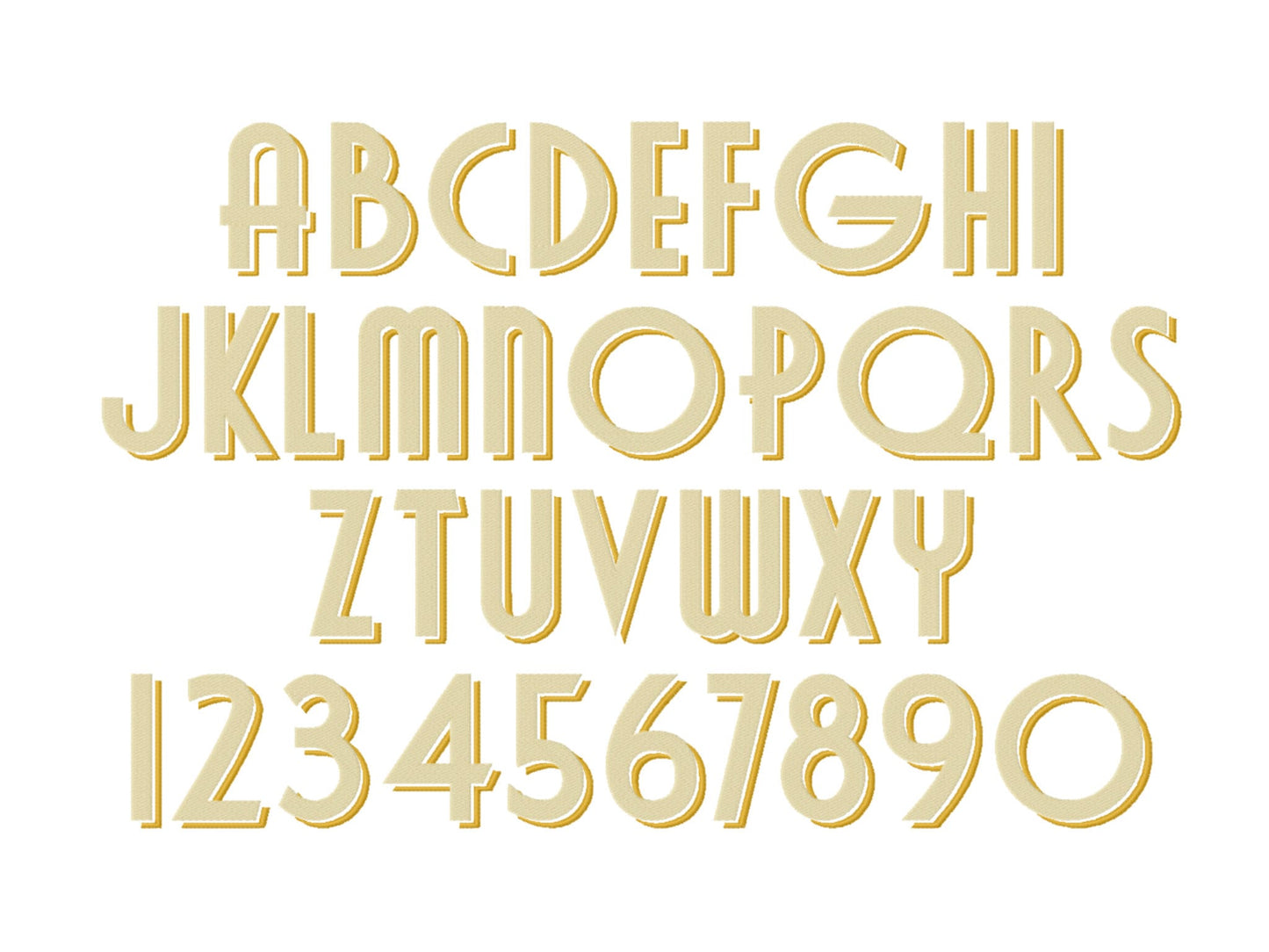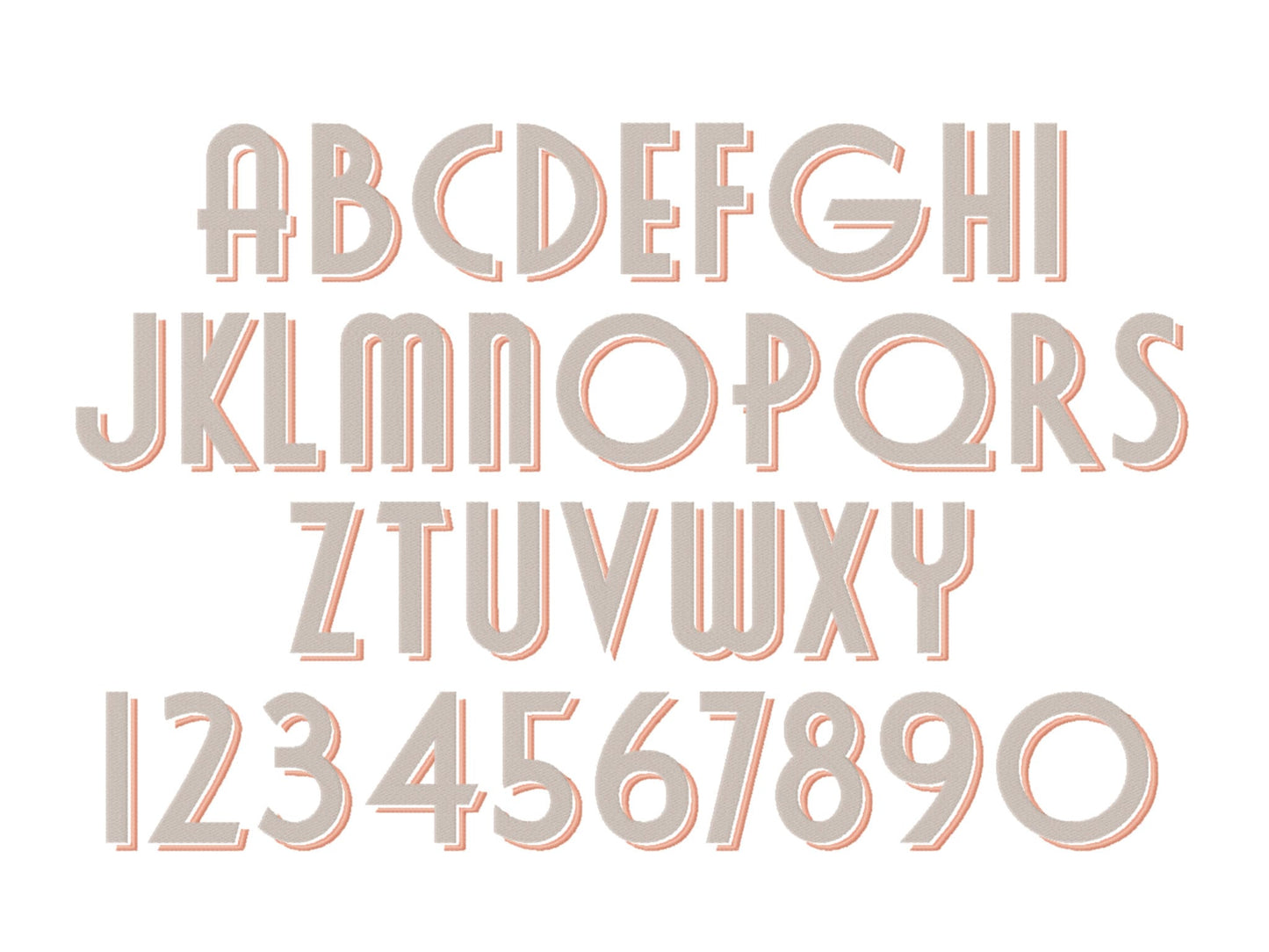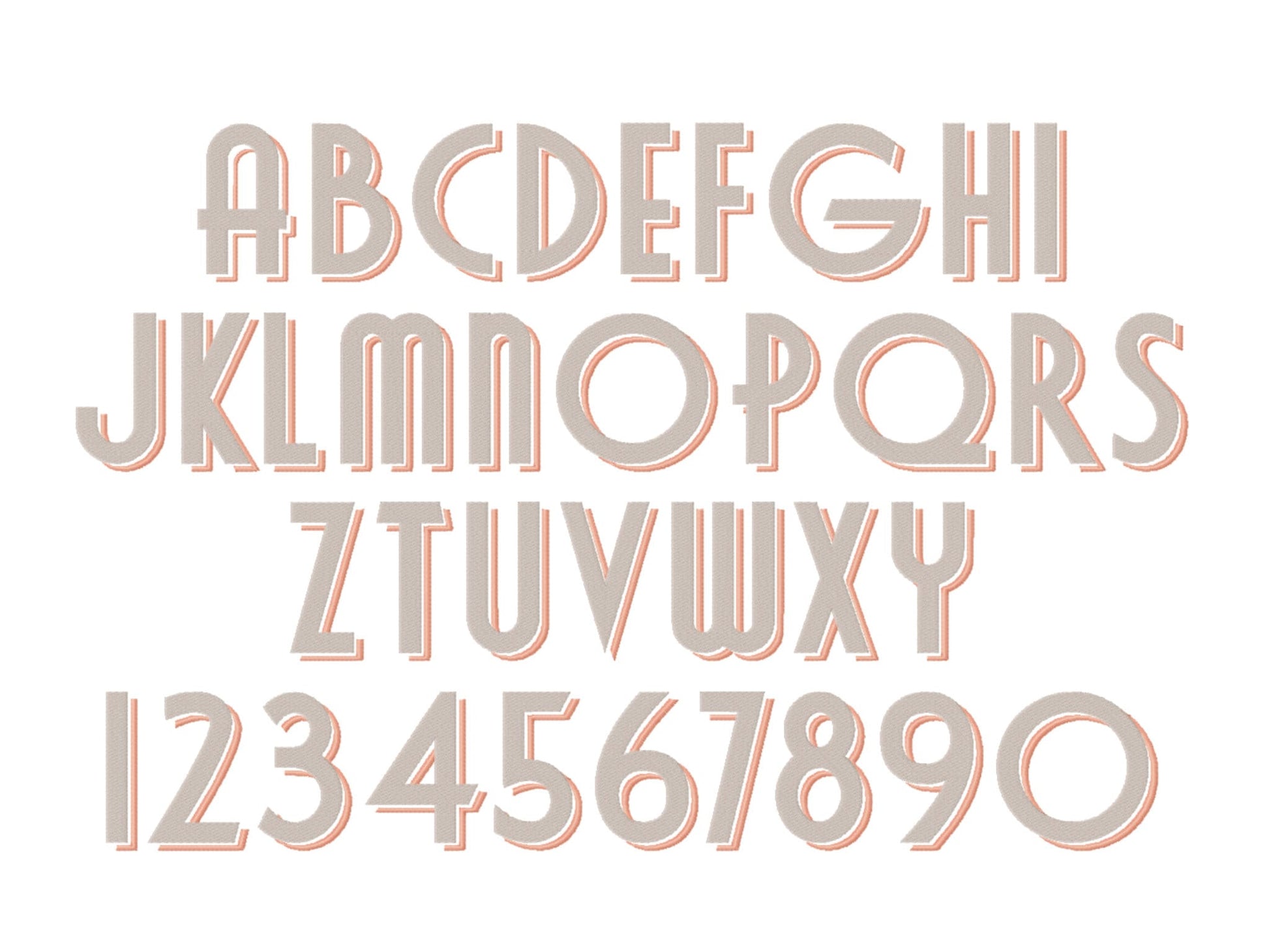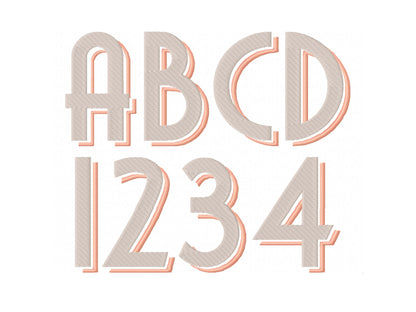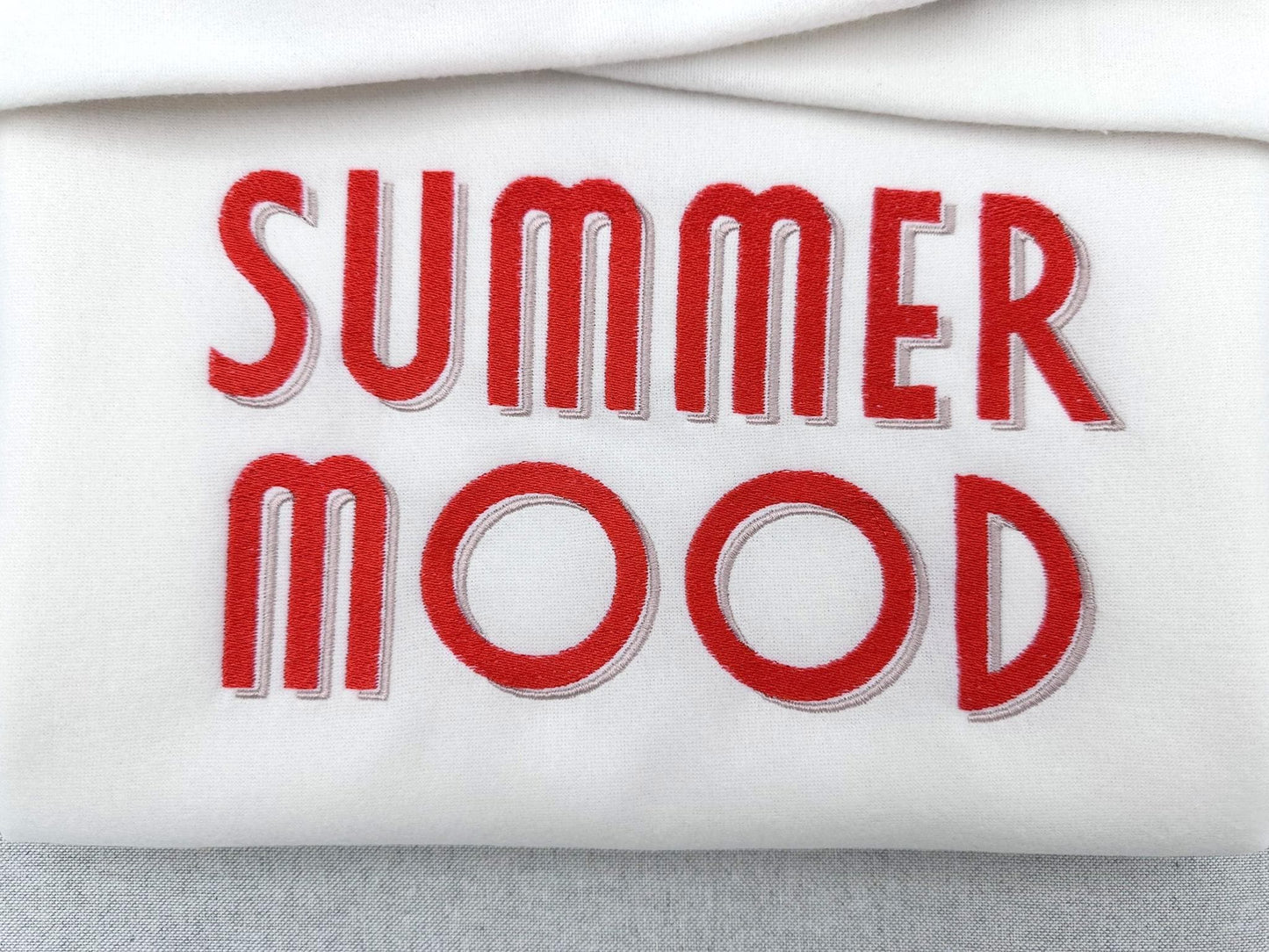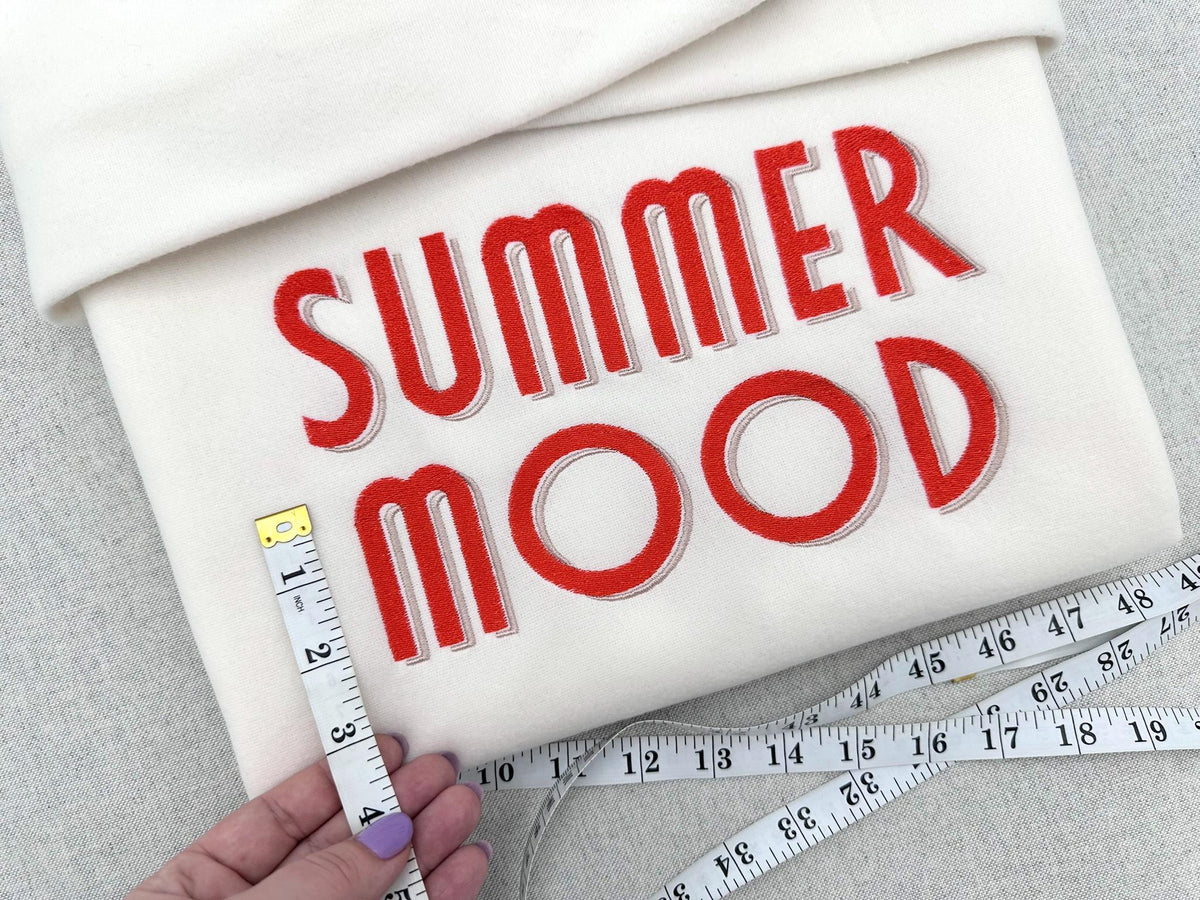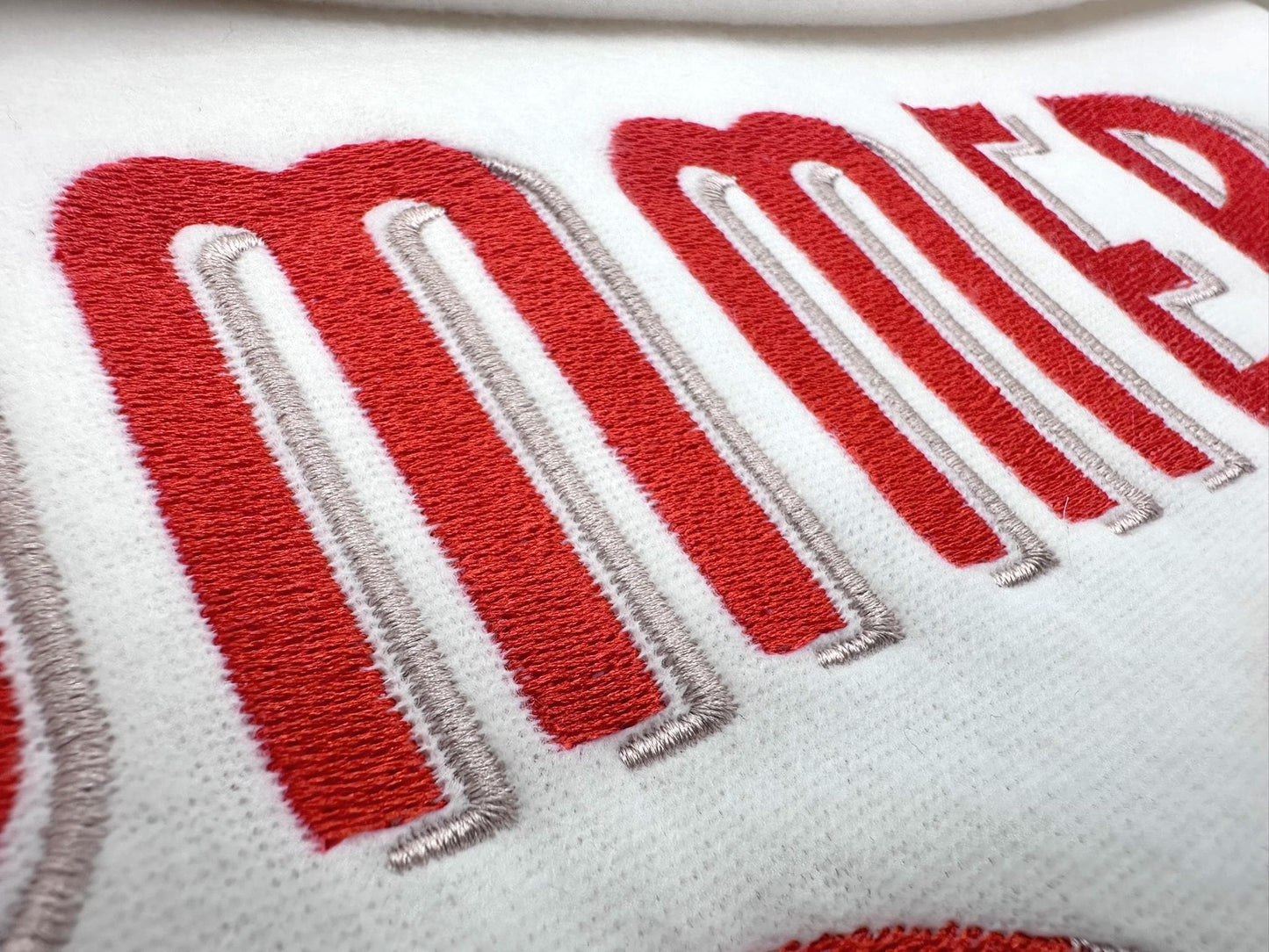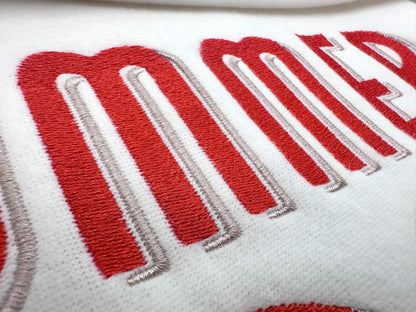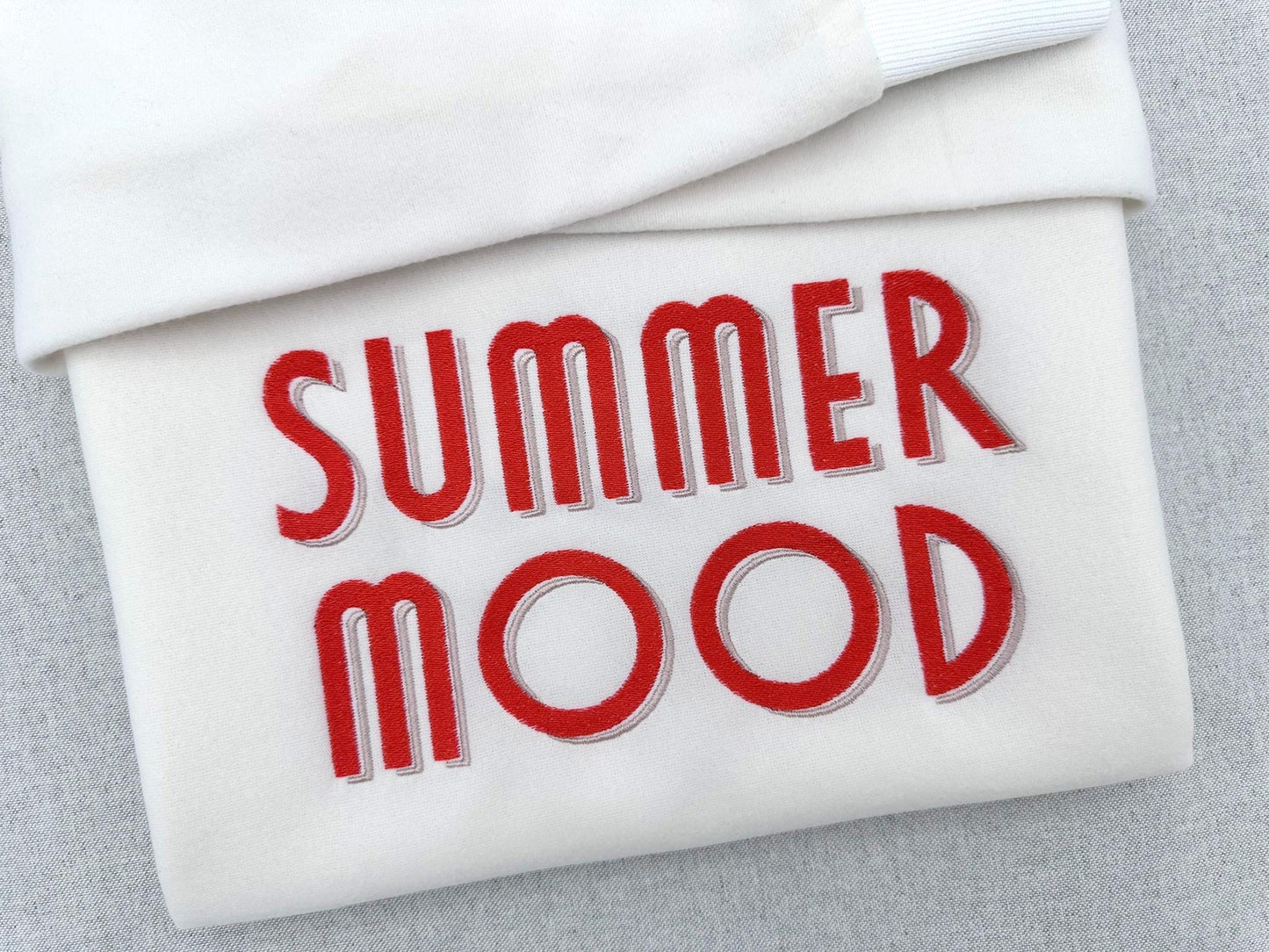
Modern Drop Shadow Font
Or click to open the linkA modern monogram font with a two-color drop shadow, in fill stitch. Clean and bold for names, initials and gifts.
The letters come in six sizes: 1.5, 2.2, 2.4, 3, 3.3 and 3.7 inches. Fill stitch letters with a drop shadow in a second color. Includes uppercase letters A to Z and numbers 0 to 9.
- Modern 2-color drop shadow font
- Uppercase A to Z, numbers 0 to 9
- 6 sizes, 1.5 to 3.7 in